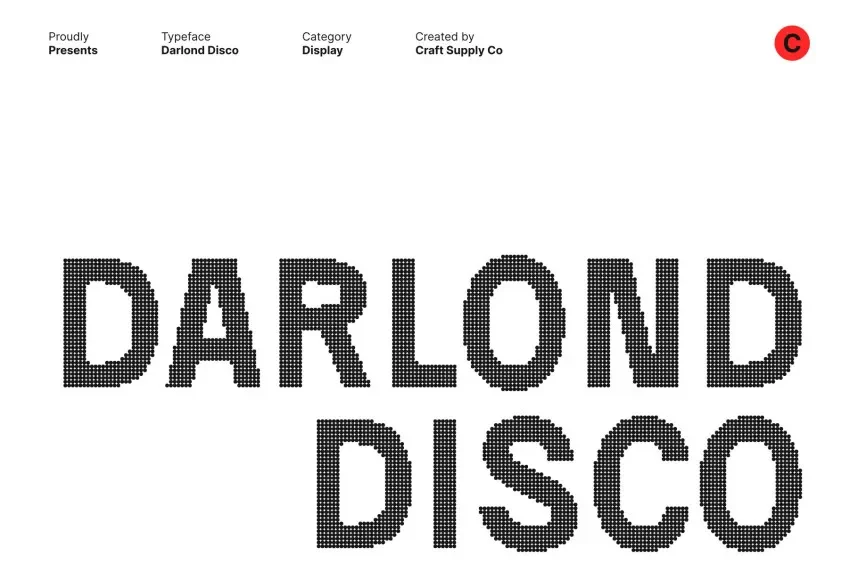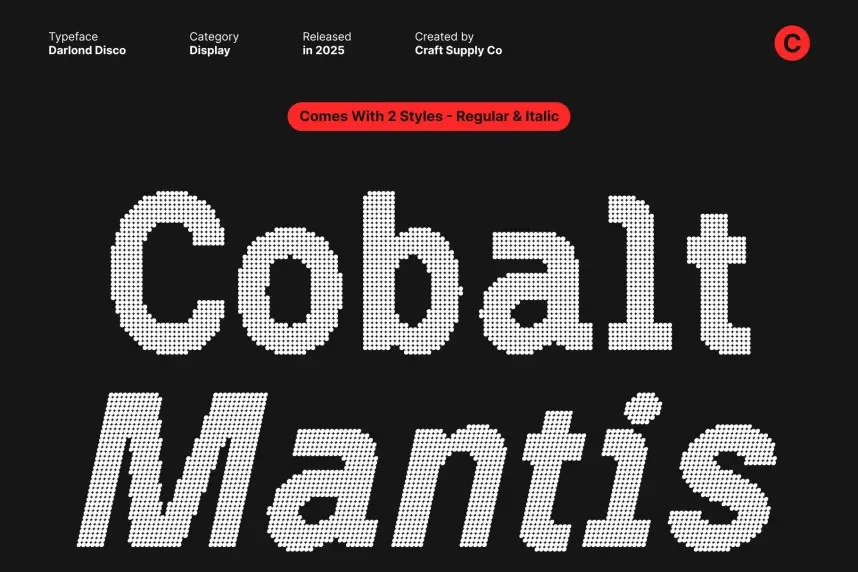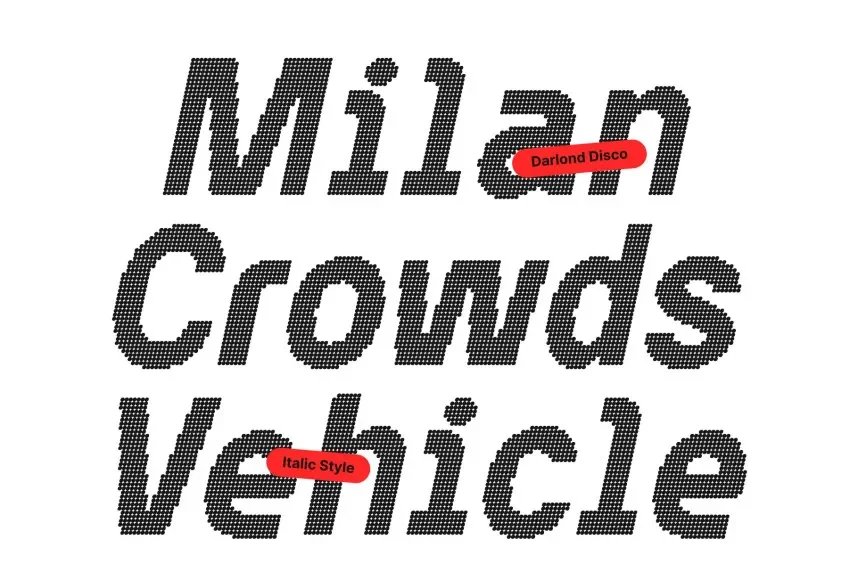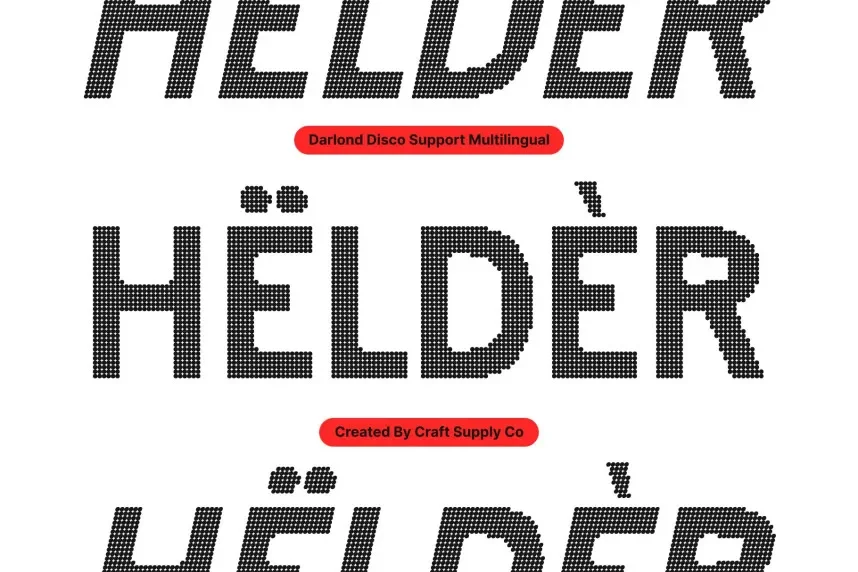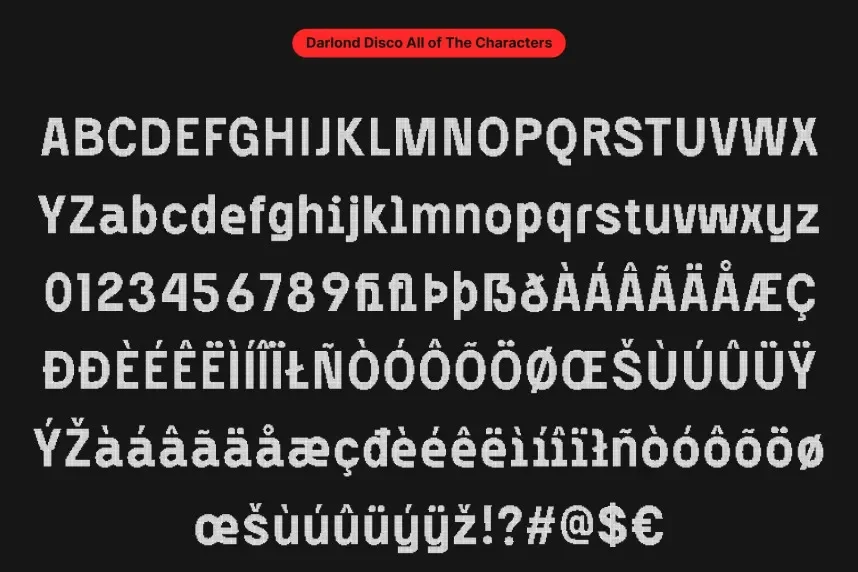
Darlond Disco Font is a dynamic, retro-inspired display typeface. Its bold, thick strokes and angular shapes make it perfect for vibrant designs that need to stand out, such as music posters, event flyers, and promotional materials.
Best used for event promotions, logos, and social media designs, Darlond Disco Font pairs well with simple sans-serif fonts for easy readability. Available in TTF and OTF formats, it includes a commercial-use license. Always verify licensing before commercial use.